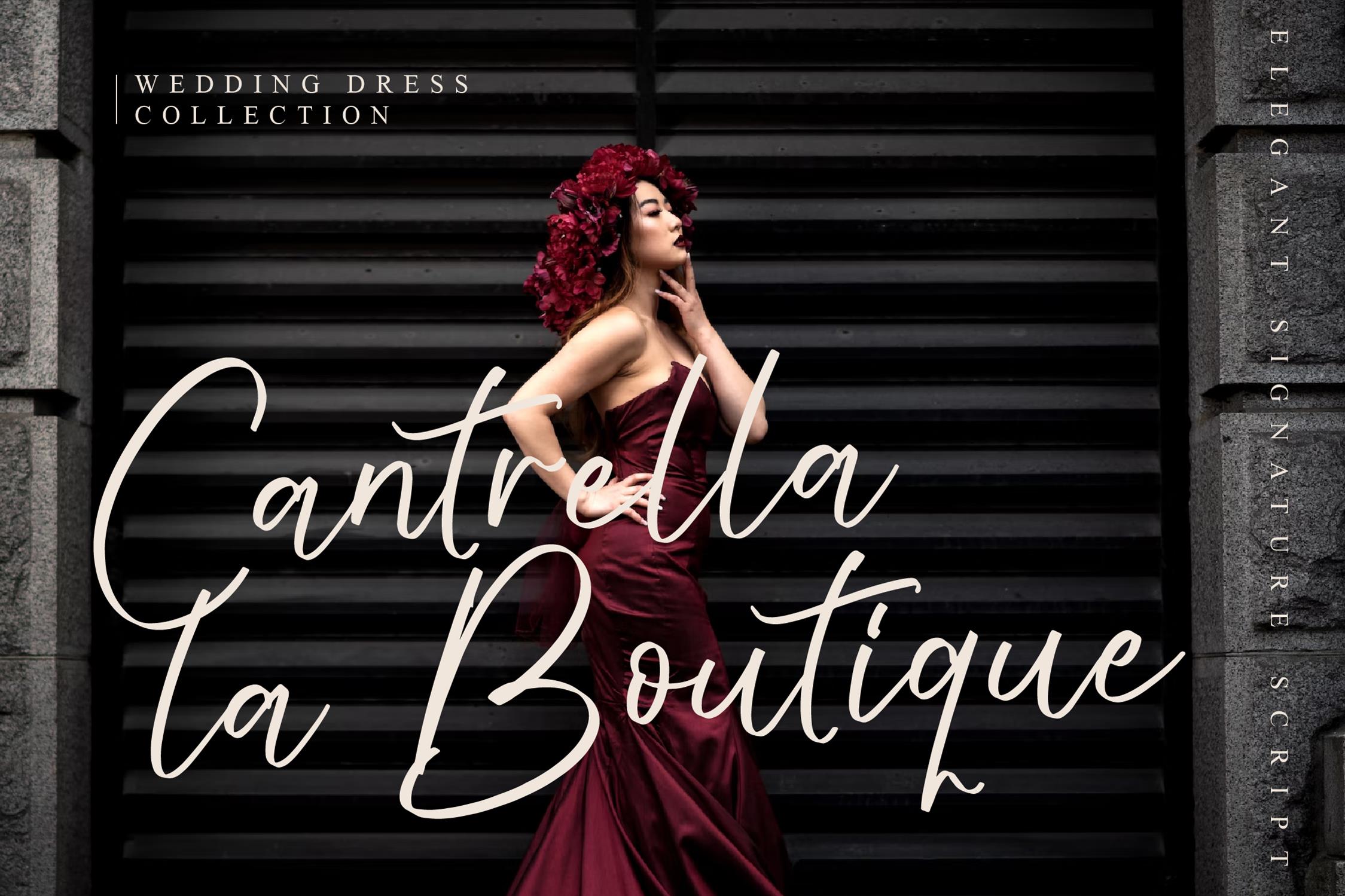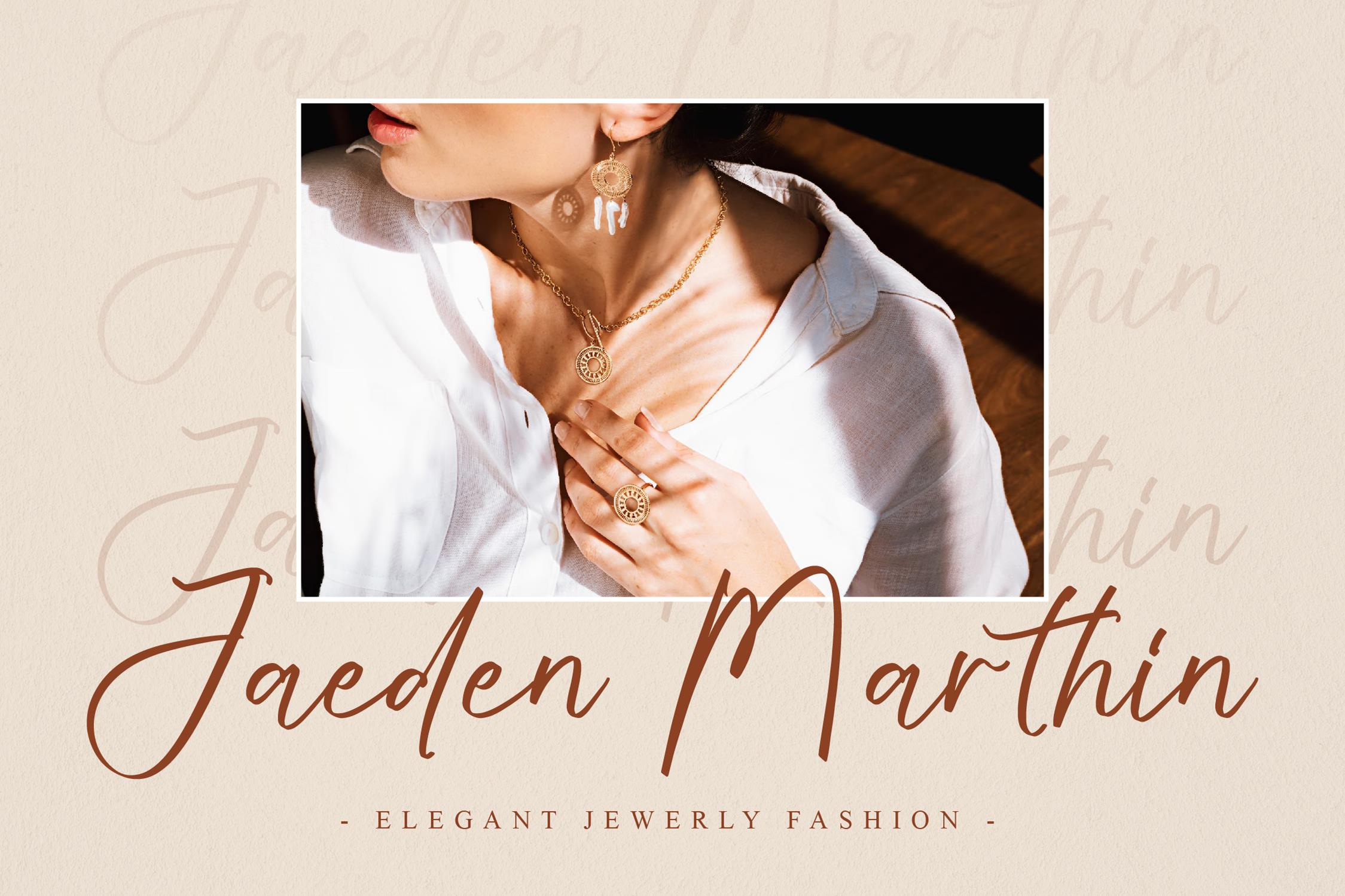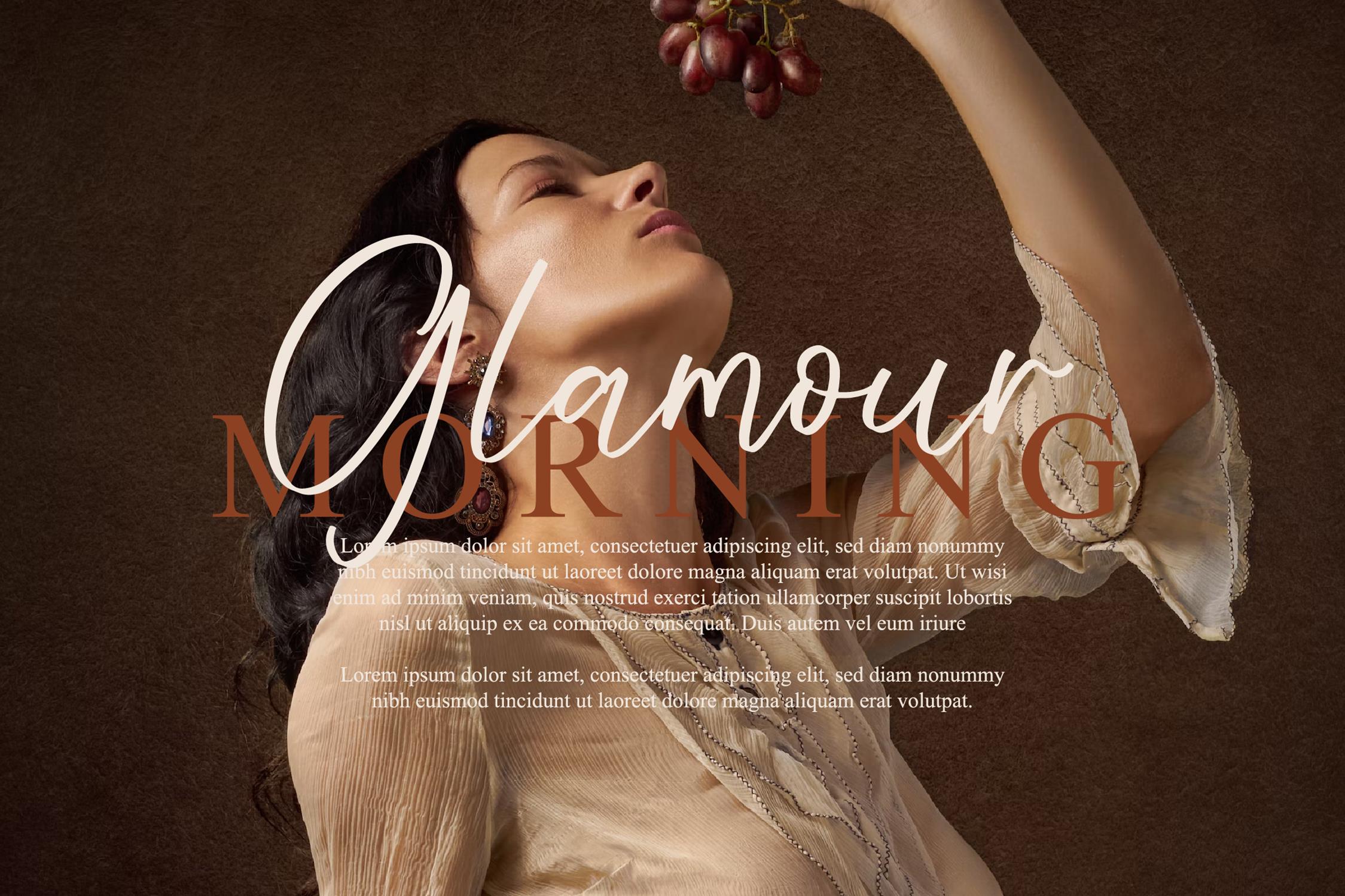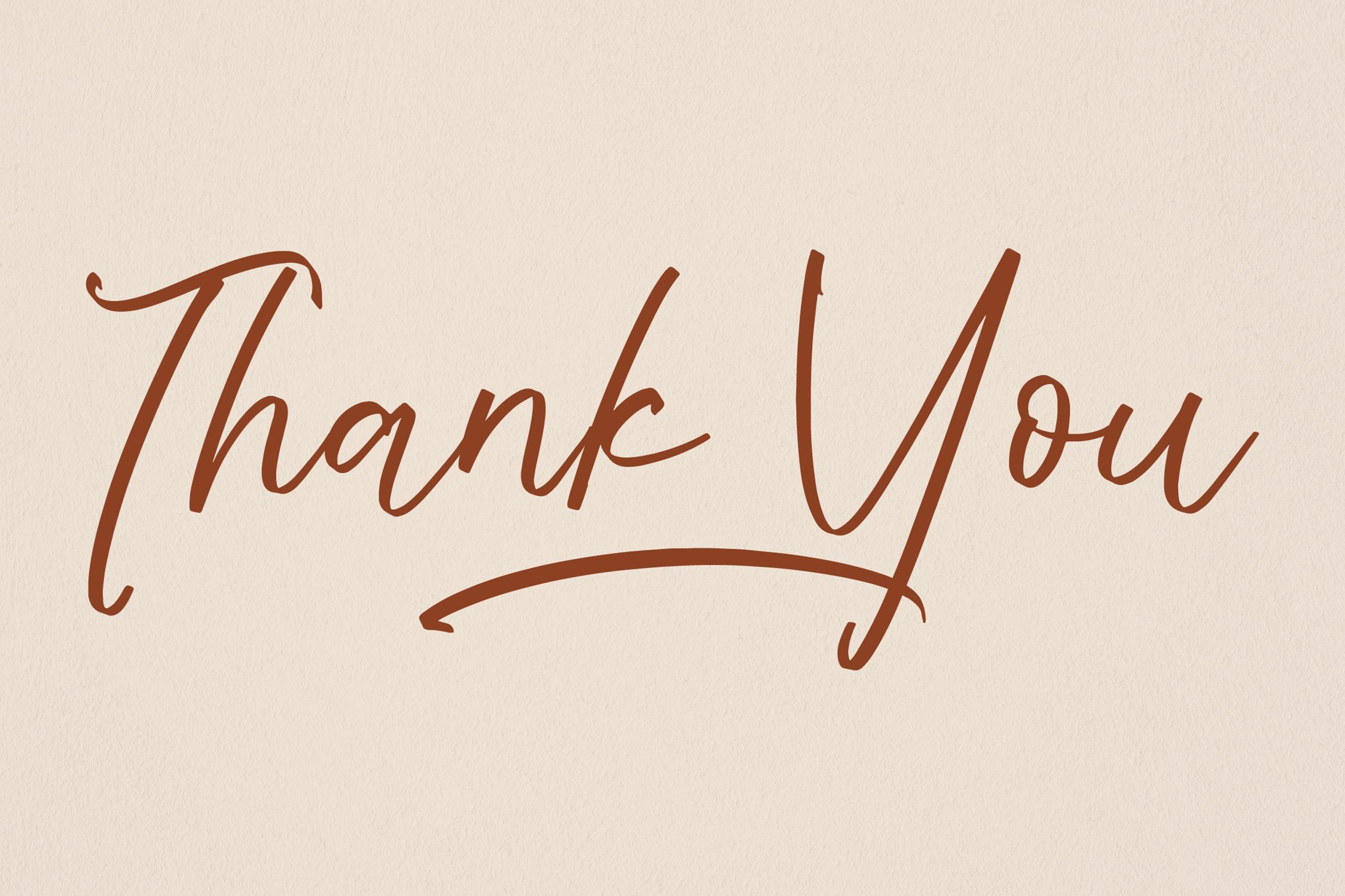
Salterego Handwritten Font
It’s a elegant signature script font, suitable for any projects such as: logos, branding projects, homeware designs, product packaging, mugs, quotes, posters, shopping bags, t-shirts, book covers, name card, invitation cards, greeting cards, label, photography, watermark, special events, and all your other lovely projects that need a beautiful script taste.